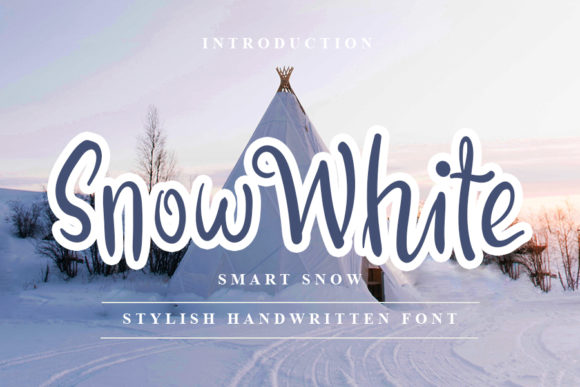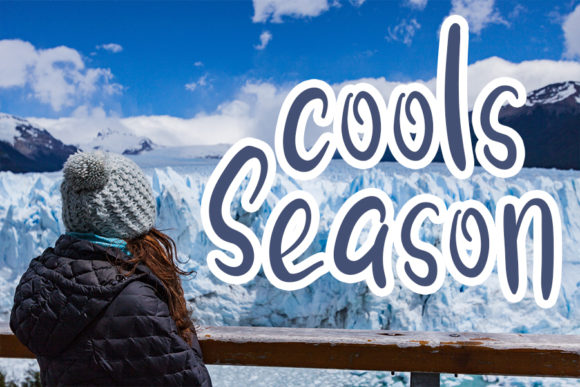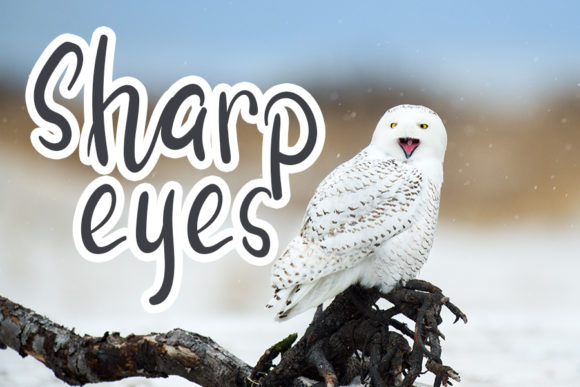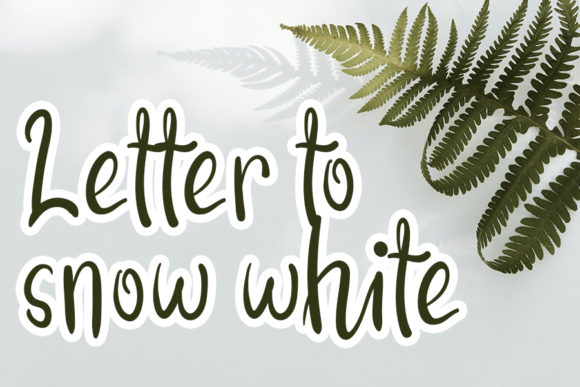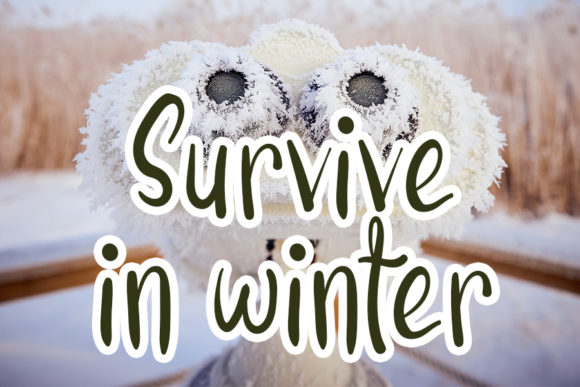
Snow White Font
About Snow White Font
Snow White is a friendly, fresh, rich, and elegant handwritten font. It is ideal for greeting cards and for any crafting project that requires a romantic or festive touch.